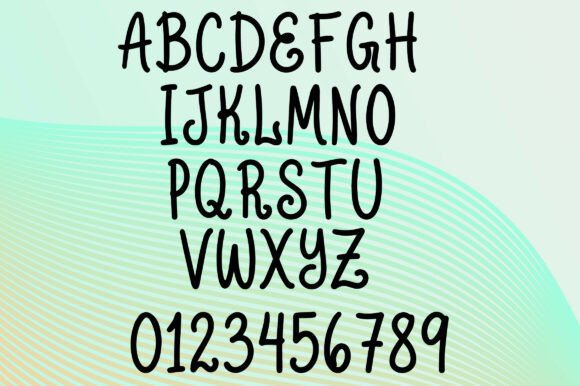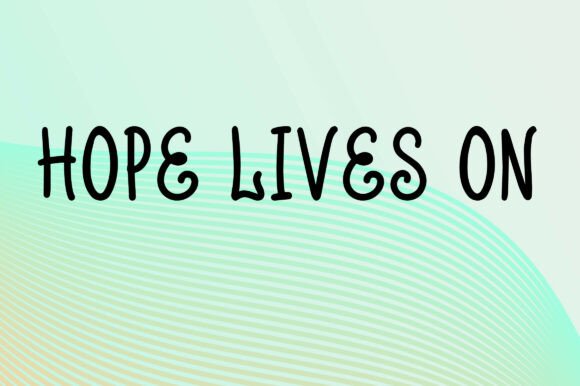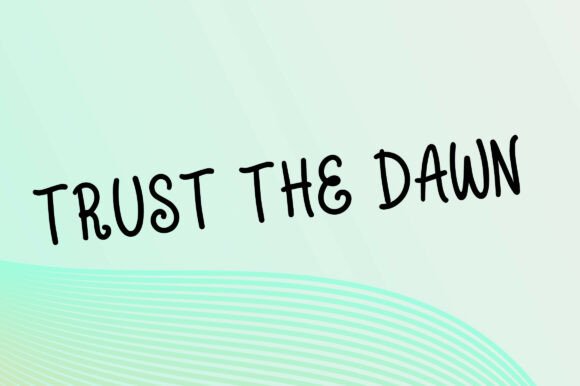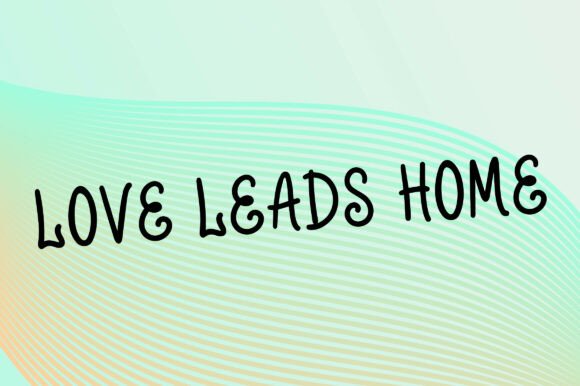
Introducing Alana Font: The Playful Handwritten Display Font
Are you looking for a font that can add a touch of playfulness and whimsy to your designs? Look no further than Alana Font, a cheerful and modern handwritten display font that’s perfect for a wide range of creative projects. In this article, we’ll take a closer look at the features and benefits of Alana Font, and explore how it can be used to elevate your designs.
What is Alana Font?
Alana Font is a playful handwritten display font that boasts a tall, slim, and cheerful style. Its smooth rounded strokes, whimsical curves, and casual handcrafted look create a friendly and eye-catching personality that feels both modern and fun. The font is designed with uppercase letters A–Z and numbers 0–9, making it perfect for a variety of design applications.
Key Features of Alana Font
- Playful and Whimsical: Alana Font has a playful and whimsical feel that’s perfect for designs that require a touch of personality.
- Smooth Rounded Strokes: The font features smooth rounded strokes that give it a soft and friendly look.
- Casual Handcrafted Look: Alana Font has a casual handcrafted look that makes it feel approachable and relatable.
- Uppercase Letters and Numbers: The font includes uppercase letters A–Z and numbers 0–9, making it versatile and easy to use.
Uses for Alana Font
Alana Font is perfect for a wide range of design applications, including:
- Logos: Use Alana Font to create a unique and memorable logo that stands out from the crowd.
- Posters: Add a playful touch to your posters with Alana Font’s cheerful and modern style.
- Branding: Use Alana Font to create a consistent brand identity that’s friendly and approachable.
- Packaging: Add a touch of whimsy to your packaging with Alana Font’s playful and eye-catching style.
- Invitations: Use Alana Font to create invitations that are both fun and elegant.
- Social Media Graphics: Add a playful touch to your social media graphics with Alana Font’s modern and cheerful style.
- Children’s Designs: Alana Font is perfect for children’s designs, such as books, games, and educational materials.
- Quotes: Use Alana Font to create inspiring and motivational quotes that are both fun and impactful.
- Creative Craft Projects: Alana Font is perfect for creative craft projects, such as scrapbooking, card making, and DIY crafts.
Benefits of Using Alana Font
There are many benefits to using Alana Font in your designs, including:
- Unique and Memorable: Alana Font is a unique and memorable font that will help your designs stand out from the crowd.
- Versatile: The font is versatile and can be used for a wide range of design applications.
- Easy to Read: Alana Font is easy to read, making it perfect for designs that require a clear and concise message.
- Fun and Playful: The font has a fun and playful feel that’s perfect for designs that require a touch of personality.
In conclusion, Alana Font is a playful handwritten display font that’s perfect for designers and crafters who want to add a touch of whimsy and personality to their designs. With its smooth rounded strokes, whimsical curves, and casual handcrafted look, Alana Font is sure to make your designs stand out from the crowd. Whether you’re creating logos, posters, branding, packaging, invitations, social media graphics, children’s designs, quotes, or creative craft projects, Alana Font is the perfect choice.